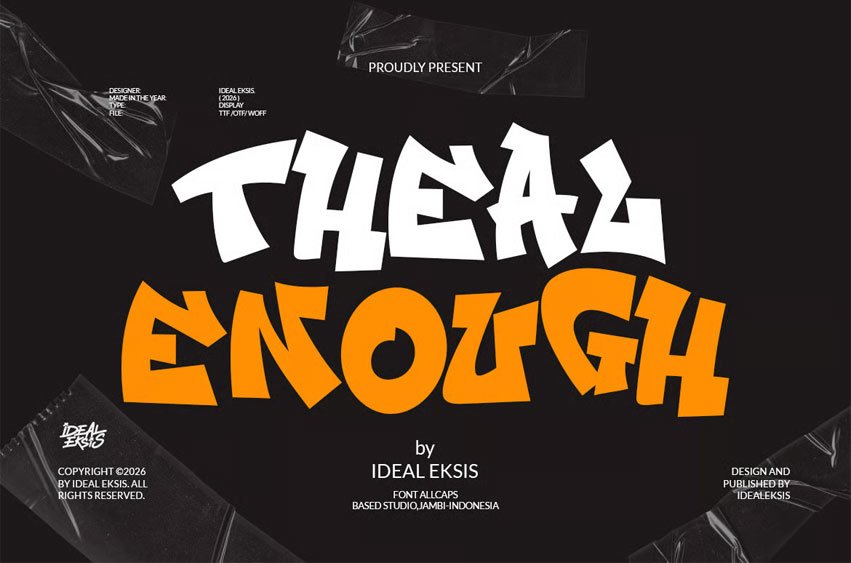
Theal Enough Font features heavy, blocky letterforms with a distinct graffiti-inspired aesthetic.
The strokes are thick and irregular, creating a sense of raw energy and street-level authenticity.